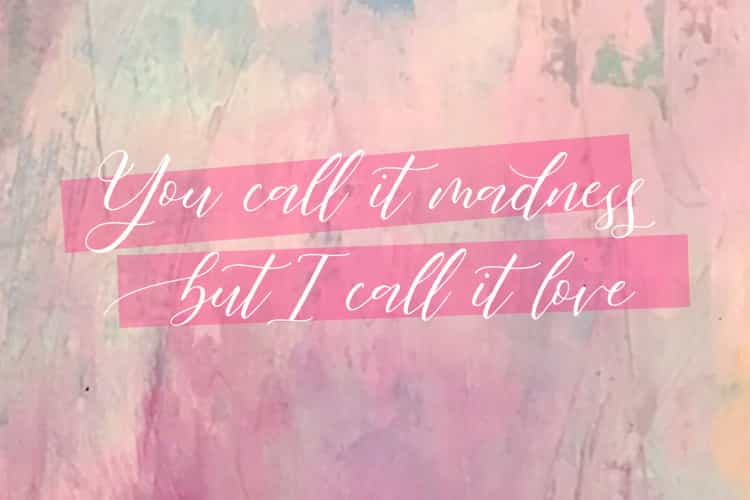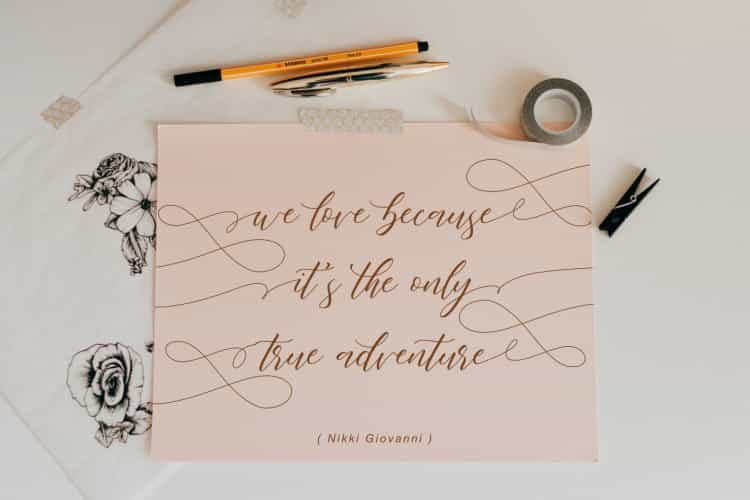
Discover Fathir Script Font, part of the Calligraphy Handwritten collection—a versatile and unique font perfect for adding a personal touch to your projects. Download it for free and enjoy crafting designs with style, from invitations to social media posts. This font is available exclusively for personal use, giving you the freedom to create without limits. Unlock your creativity with Fathir Script Font today!
Introduces the newest product Fathir Script Font! Abo Daniel Studio has designed and shared it. The lovely calligraphy font FATHIR is made with real handwritten, and it has three styles of titling and ending swash.